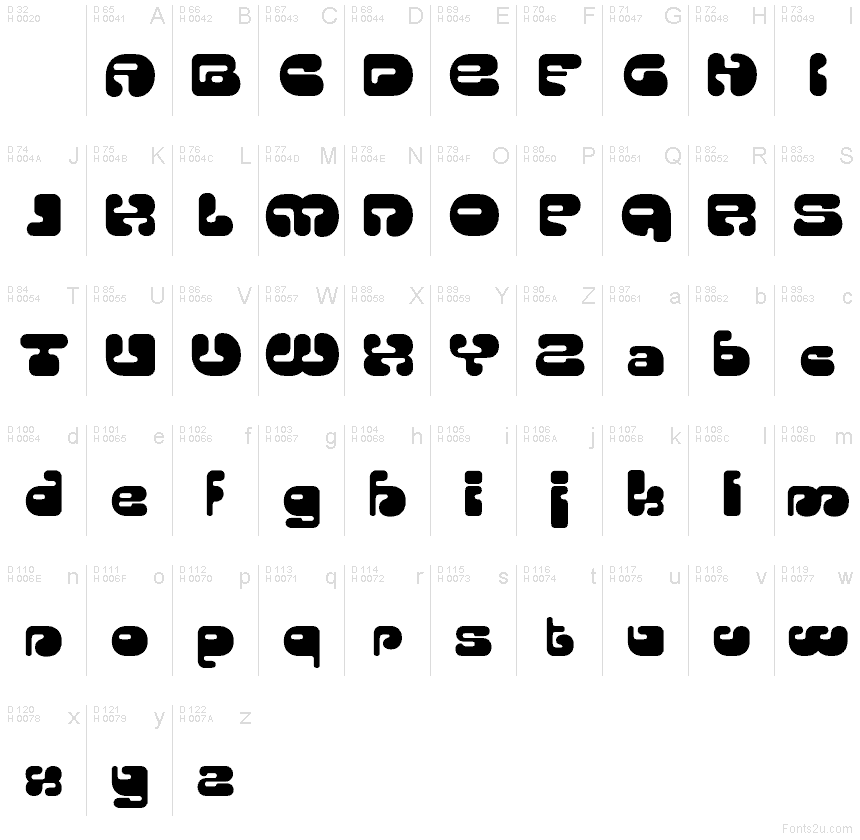
CS Mecha Regular Demo
CS Mecha font by Craft Supply Co. is a bold, expanded, groovy typeface that combines a futuristic and geometric feel with an industrial and mechanical touch. The display font has sharp edges with smooth folds set in the most contemporary arrangement to fit modern typesetting applications.
Enjoy CS Mecha’s mechanical feel in technology branding, Sci-Fi movie posters, industrial stationary artwork, advertisements for machinery companies or engineering firms, logos and uniforms for metal-workers and welders. Your free exploration of this unique typeface can also include product packaging designs especially where thoughts of modernism are preferred.